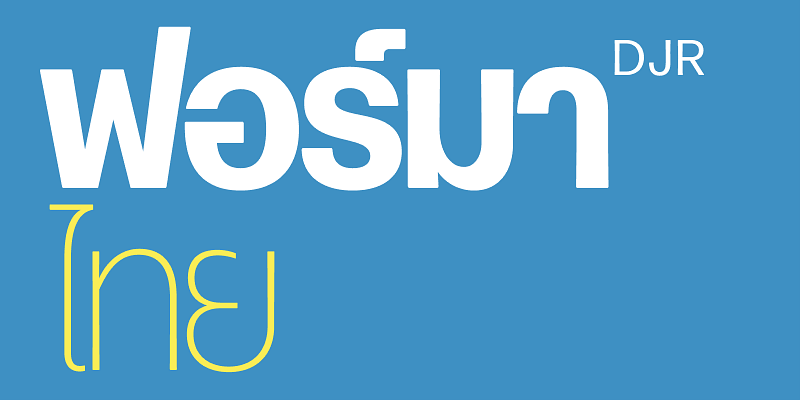
Forma DJR Thai Font Free Download is a refined, contemporary typeface that seamlessly blends modernist aesthetics with traditional Thai character support. Designed with precision and clarity in mind, this font is ideal for projects that require a clean, minimalist look while maintaining cultural relevance and multilingual functionality.
Perfect for editorial design, branding, corporate identities, and digital interfaces, Forma DJR Thai brings a sense of structure and harmony to your layouts. It offers excellent legibility at various sizes, making it suitable for both print and screen environments. The Thai script is thoughtfully crafted to match the visual rhythm of the Latin characters, ensuring a balanced and professional appearance across all content.
Whether you’re designing bilingual websites, marketing materials, or sleek mobile apps, Forma DJR Thai is a reliable choice that communicates sophistication and modern design principles. Its versatility allows it to adapt to a wide range of industries—from fashion and architecture to tech and publishing.
Forma DJR Thai isn’t just a font—it’s a bridge between cultures, design systems, and modern expression. Make your work truly global with this elegant and intelligent typeface.